The truth is, they change all the time and my answer would probably change every time you ask me. But what doesn’t change is the list of type foundries I follow, the source of all the goodness.
I probably spent tens of thousands of dollars on typefaces since I started designing. I love typefaces, they are the core of everything I’m doing and every cent spent is worth it. I guess what I'm hinting at is: If you like a Typeface and use it, pay your favorite type designer.
Below a list of some of my favorite type foundries I try to visit on a regular basis. It's important to mention that most of these type foundries create typefaces that just fit my personal taste. Further below at the end of the article I list a couple more resources and type foundries with more variety of typefaces. The ones I list at the top are specifically the ones I always loved the most.
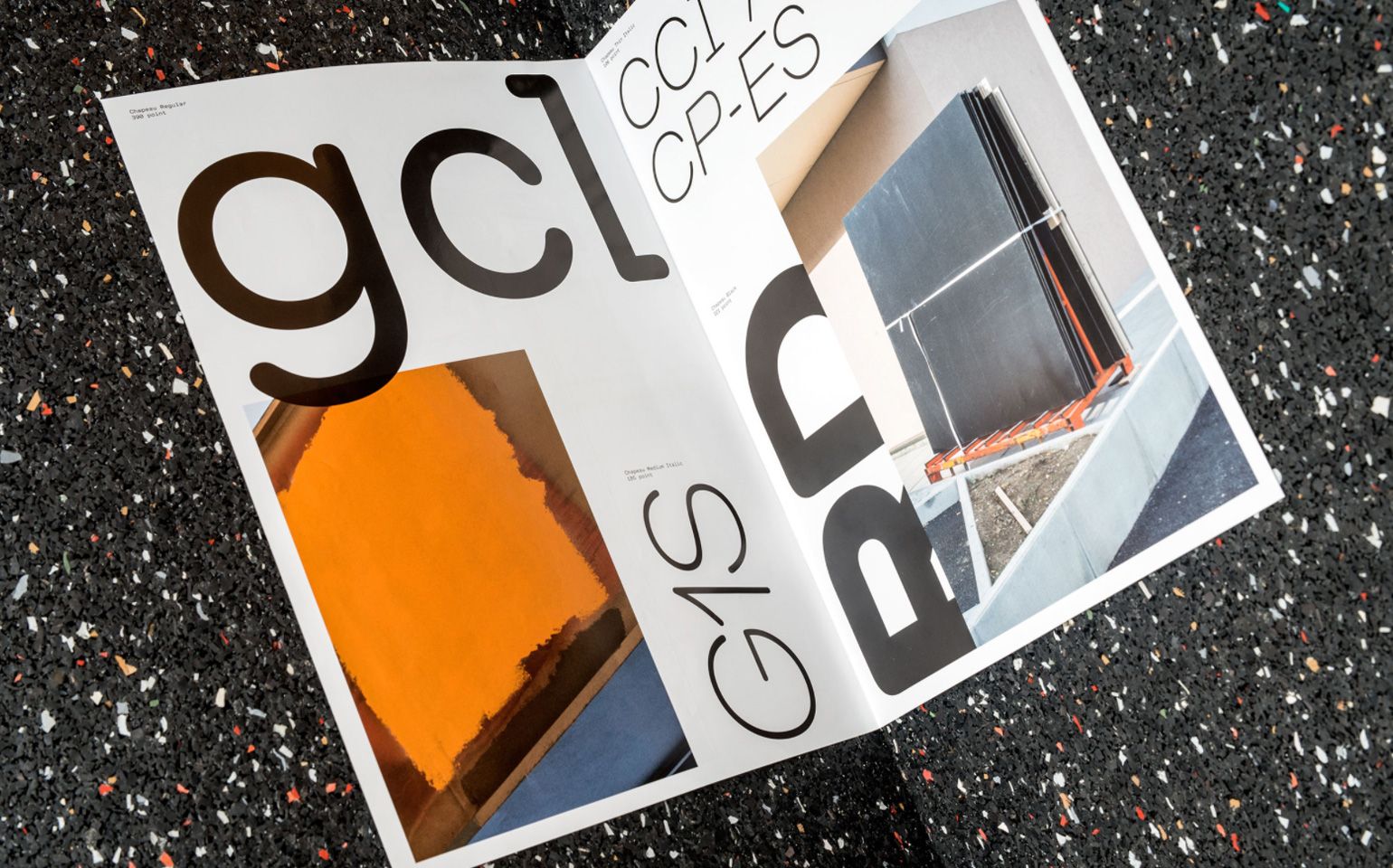
Milieu Grotesque
Easily one of my favorites. I found their typeface Maison Neue a couple years ago, it was just released and no one was using it so I ended up applying it as my main typeface for everything related to my personal brand. You can see it in use on my business cards from early 2013.
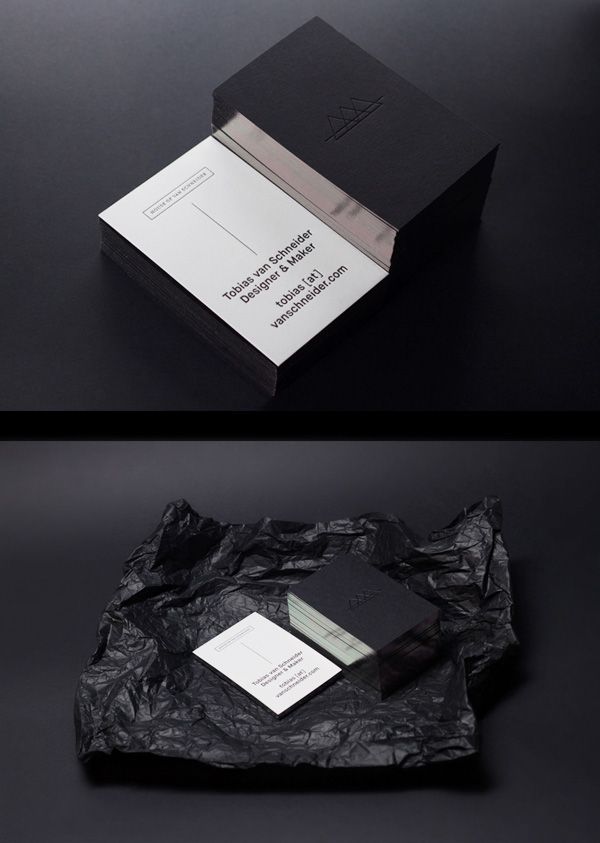
Since then the typeface became fairly popular. It’s funny, once you discover a new typeface you want to tell everyone, but at the same time you want to keep it for yourself. (which isn’t good for the type designer of course)
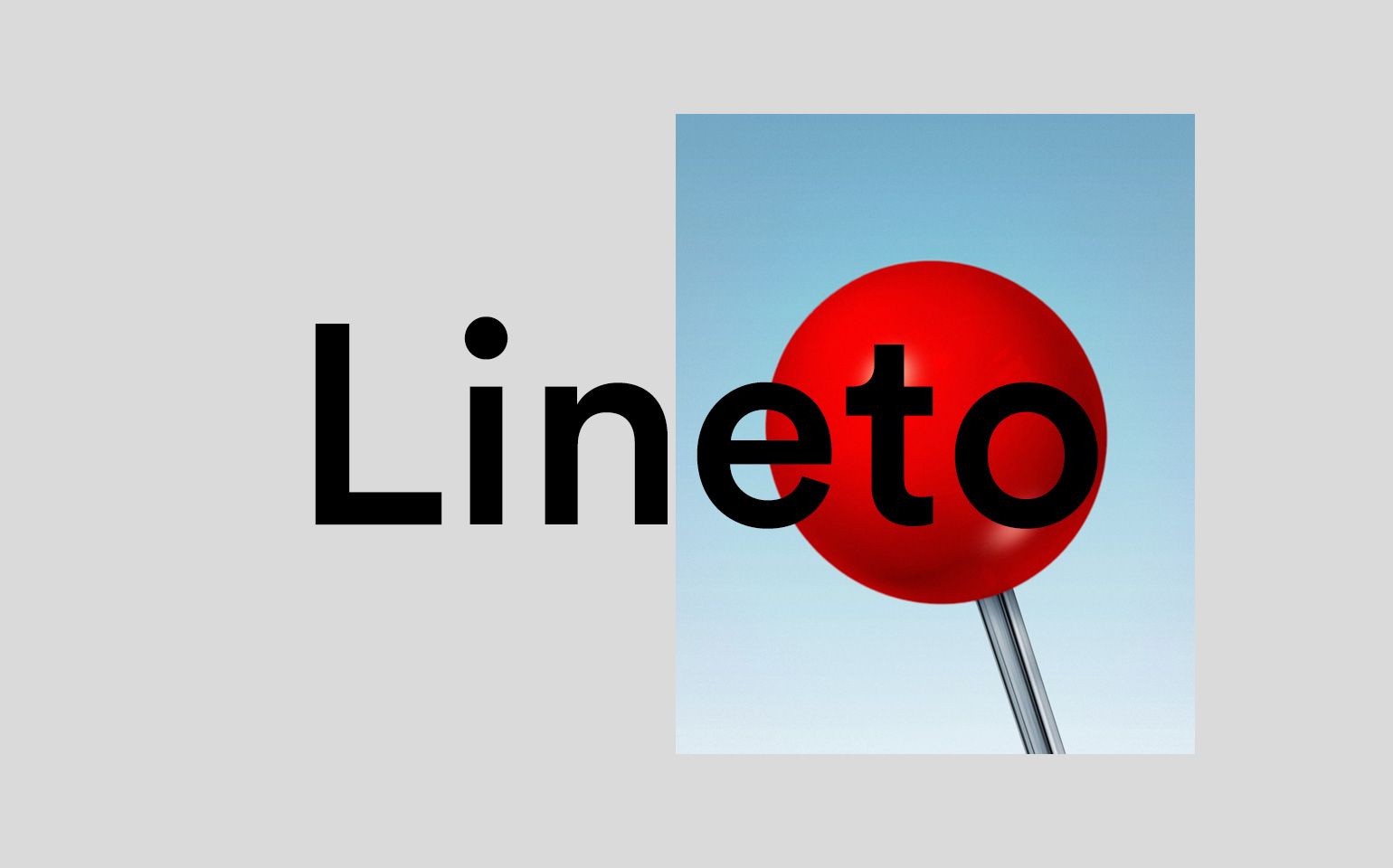
Lineto
Most of you probably know Lineto. We (when I used to work at Spotify) used Circular for the new Spotify re-branding and I personally love Akkurat, Brown and many more typefaces they published. As much as I love Lineto, you will have some difficulties getting the typefaces for your digital products since they only offer their fonts with a self-hosted license. (and Lineto is famous for being very expensive with those)
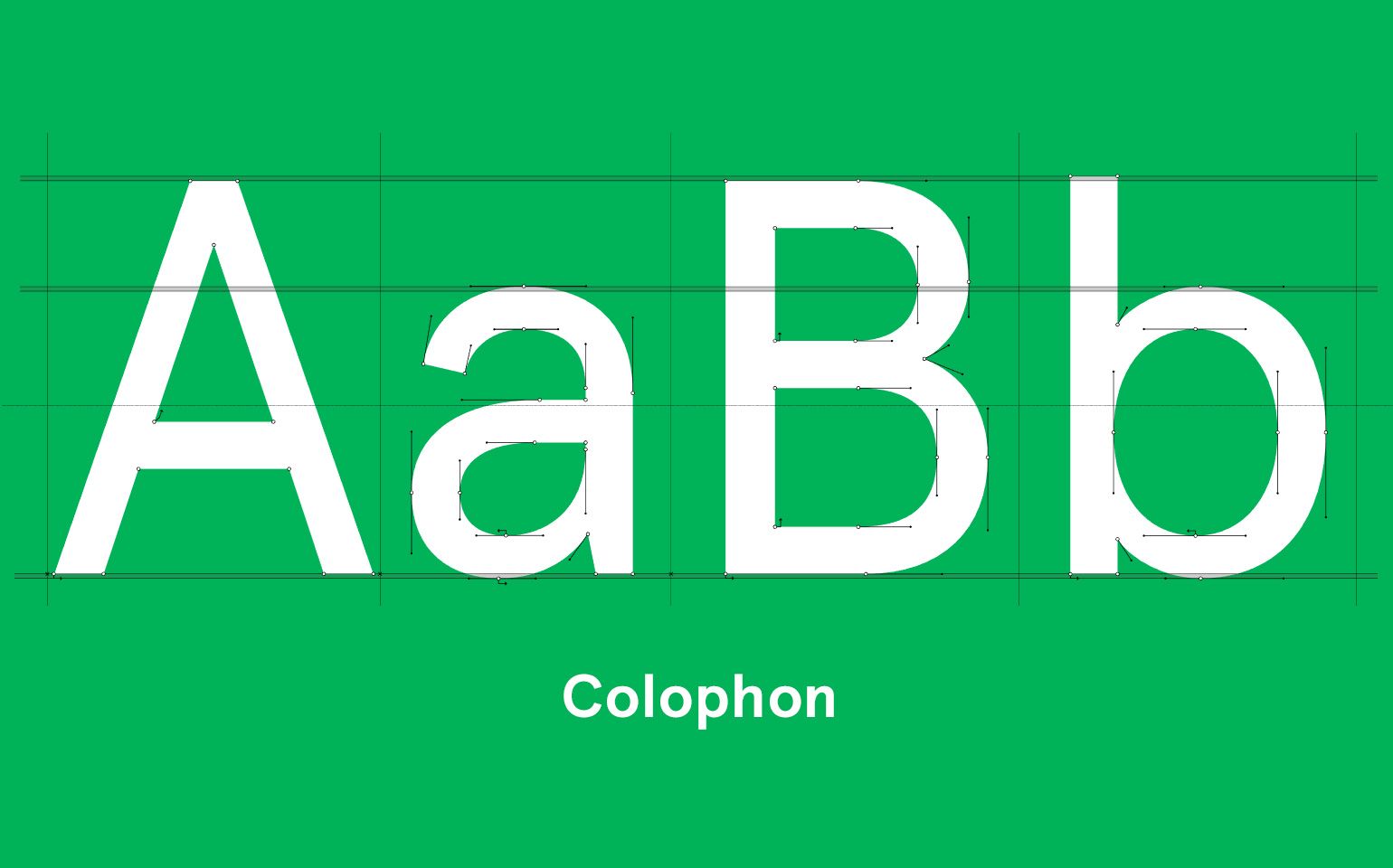
Colophon
Colophon is a London/New York based type foundry which I count to one of my favorites. Their most popular and latest typeface is probably Apercu.
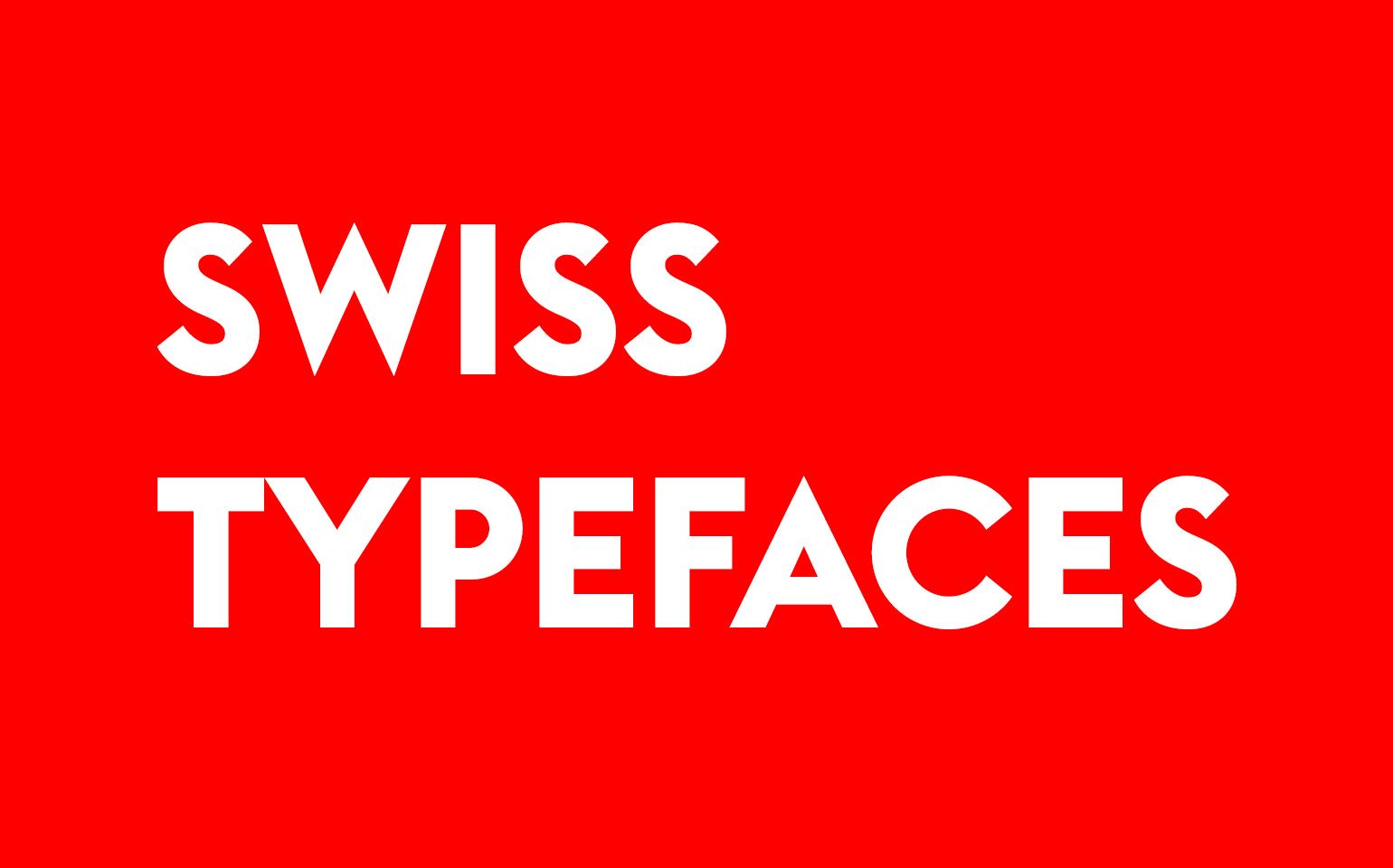
Swiss Typefaces
I think I own pretty much all typefaces from this little type foundry. The last project I did was the branding for Ada Blackjack where we used their typeface Euclid & Romain. You can see an example below.
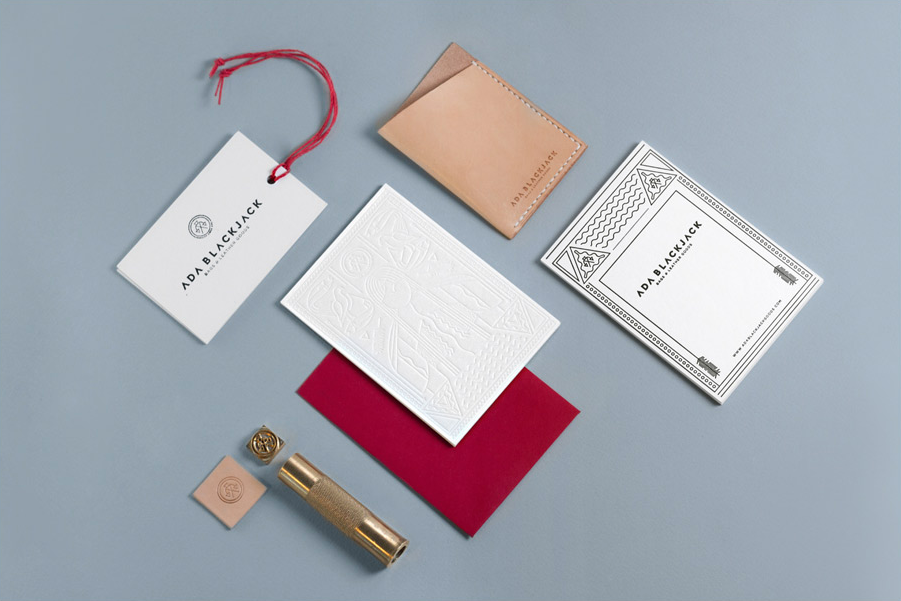
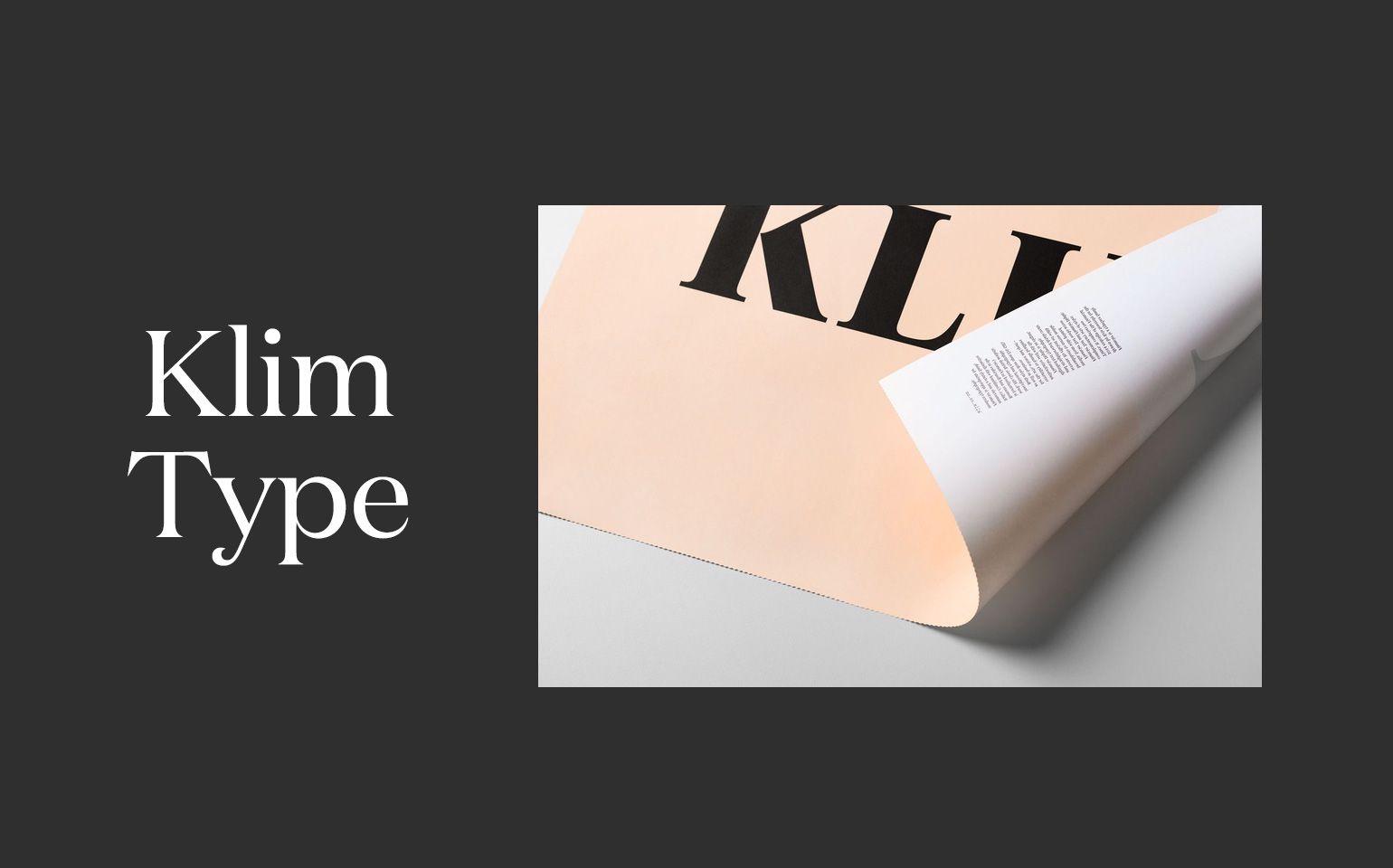
Klim Type Foundry
Klim Type Foundry is a one man type foundry located in New Zealand with absolutely stunning typefaces. Definitely worth a follow. One of my favorite typefaces is probably Domaine Display.
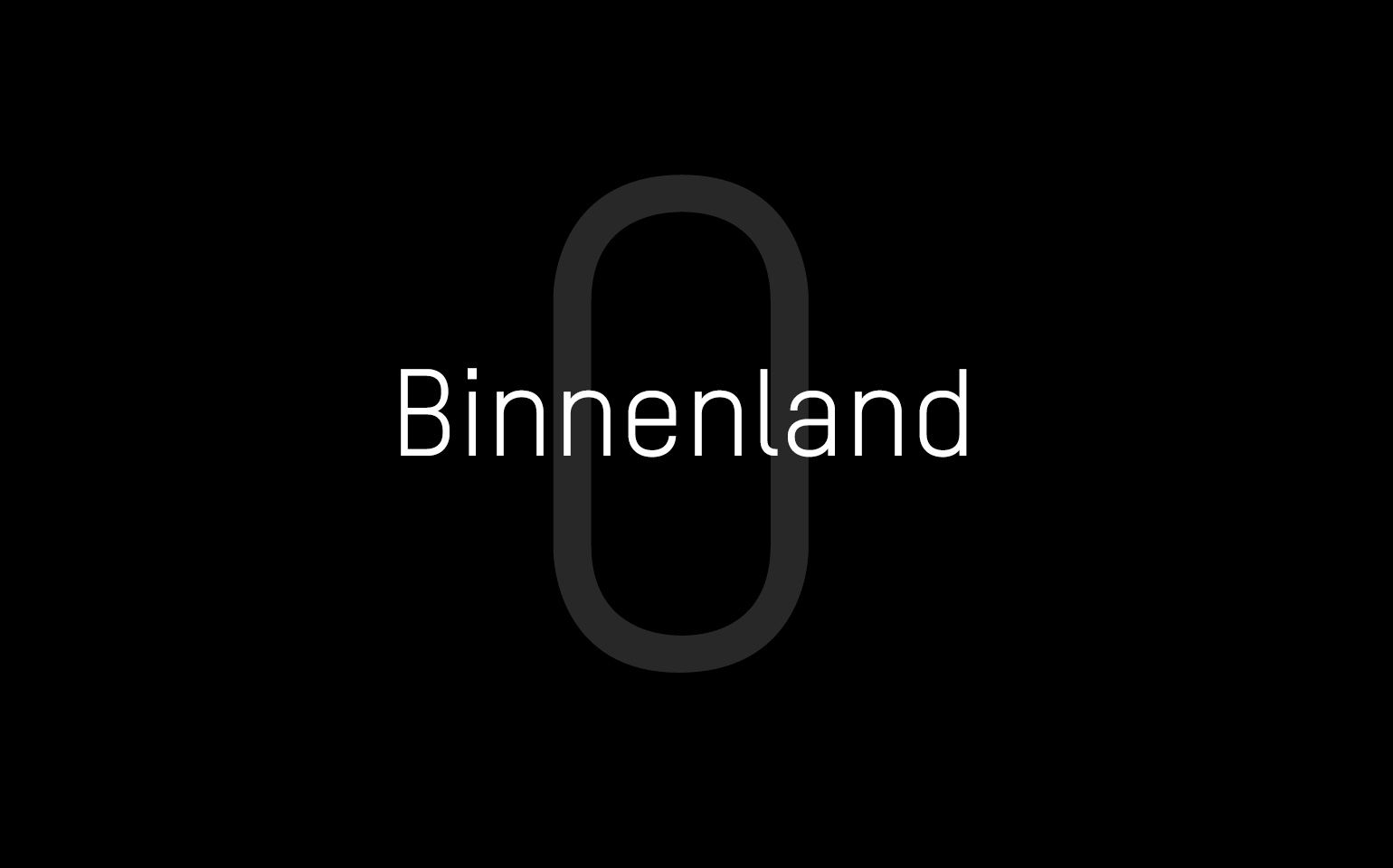
Binnenland Type
I remember a couple years ago (actually, I think it was around 2005) I fell in love with their typeface T-Star and since then it has been one of my favorites which I used in many of my personal projects.
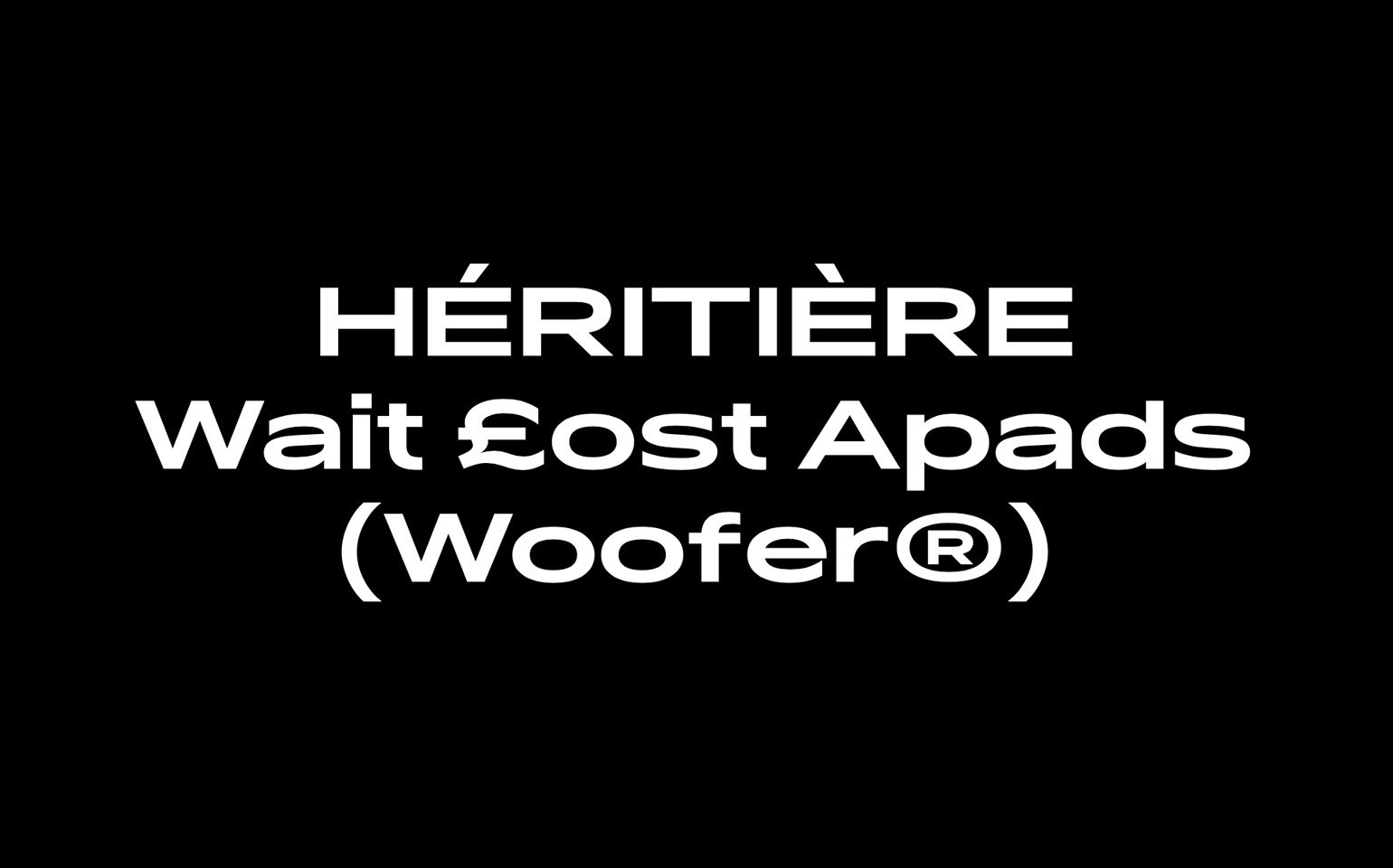
Filip Matejicek
Not so much a type foundry but I fell in love with his Pano typeface. He also runs a small type foundry called Heavyweight on the side as much as I could find out. I try to check back every now and then and see if there is something new.
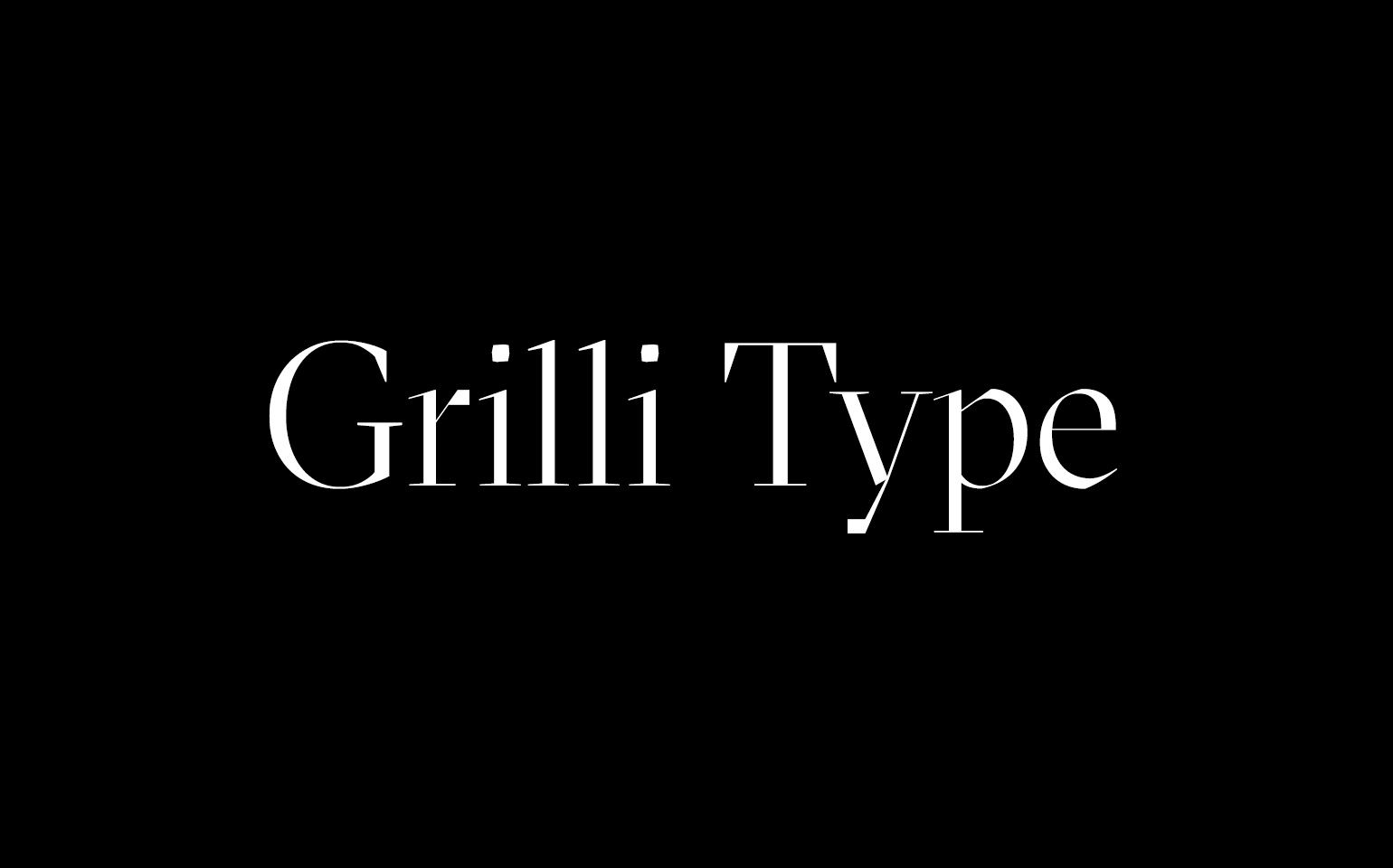
Grilli Type
Grilli Type is a little independent swiss type foundry you should definitely follow. Probably the most well known typefaces (and my favorites) are GT Walsheim and GT Haptik.
Radim Pesko
Small type foundry based out of London founded by Radim Pesko. Really nice selection of typefaces, especially Agipo and Fugue.
Letters from Sweden
Another one of my highlights. Letters from Sweden, a small'ish type foundry based on Sweden and founded by Göran Söderström. Can't even decide which typeface is my favorite here, they're all wonderful and I'm about to buy pretty much all of them.
Editions 205
Another type foundry , but this time from France. Probably one of my little secrets so far, especially typefaces like Plaak and LeBeaune really made me fall in love with their work.
Dynamo
And because we haven't had yet enough of it, another swiss type foundry. Especially liking their Prophet and Favorit typeface.
More resources & type foundries
Optimo
Another swiss classic you should definitely bookmark. One of my favorites.
Commercial Type
Another great type foundry. My favorites are probably Austin and Graphik, both stunning typefaces.
Hoefler & Co
Lot's of classics in here, and a great resource for web typography.
URW++
A classic German type foundry you should bookmark.
Novellnoire
Another swiss foundry with a more experimental selection.
Hfdfonts
You probably heard of the typeface Brandon. Lots of very solid typefaces in their selection I really like.
House Industries
Famous for their typeface Neutraface I and Neutraface II. Used it many times myself and I'm sure you've seen it as well.
Fontbureau
Another classic you probably already follow.
Dalton Maag
Another one of the big ones you probably already know. as recommended by @jms_bk on Twitter - Thank you! Also https://typesupply.com and https://www.productiontype.com/ and https://www.theleagueofmoveabletype.com